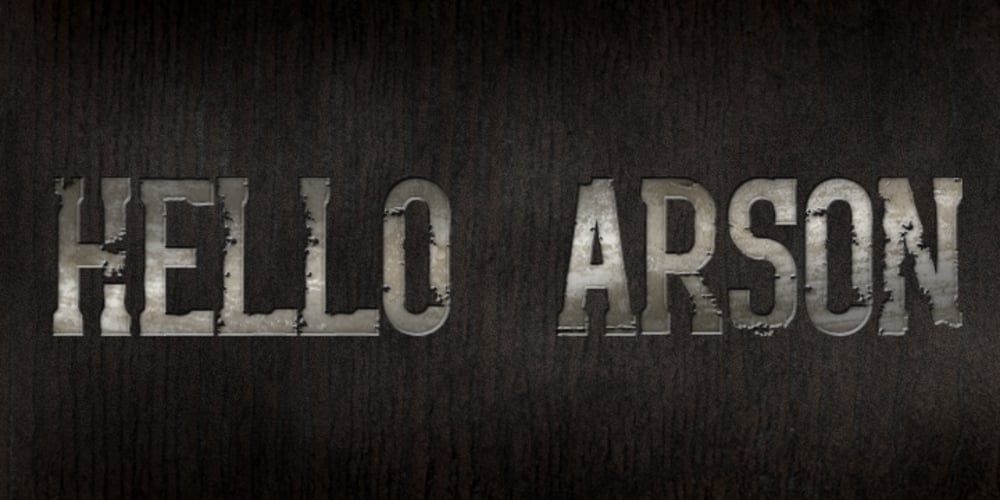
Hello Arson Font Family was designed by Matthew Tyndall and published by Dismantle Destroy. Hello Arson contains 1 styles and family package options. This font is great for CD covers and posters.